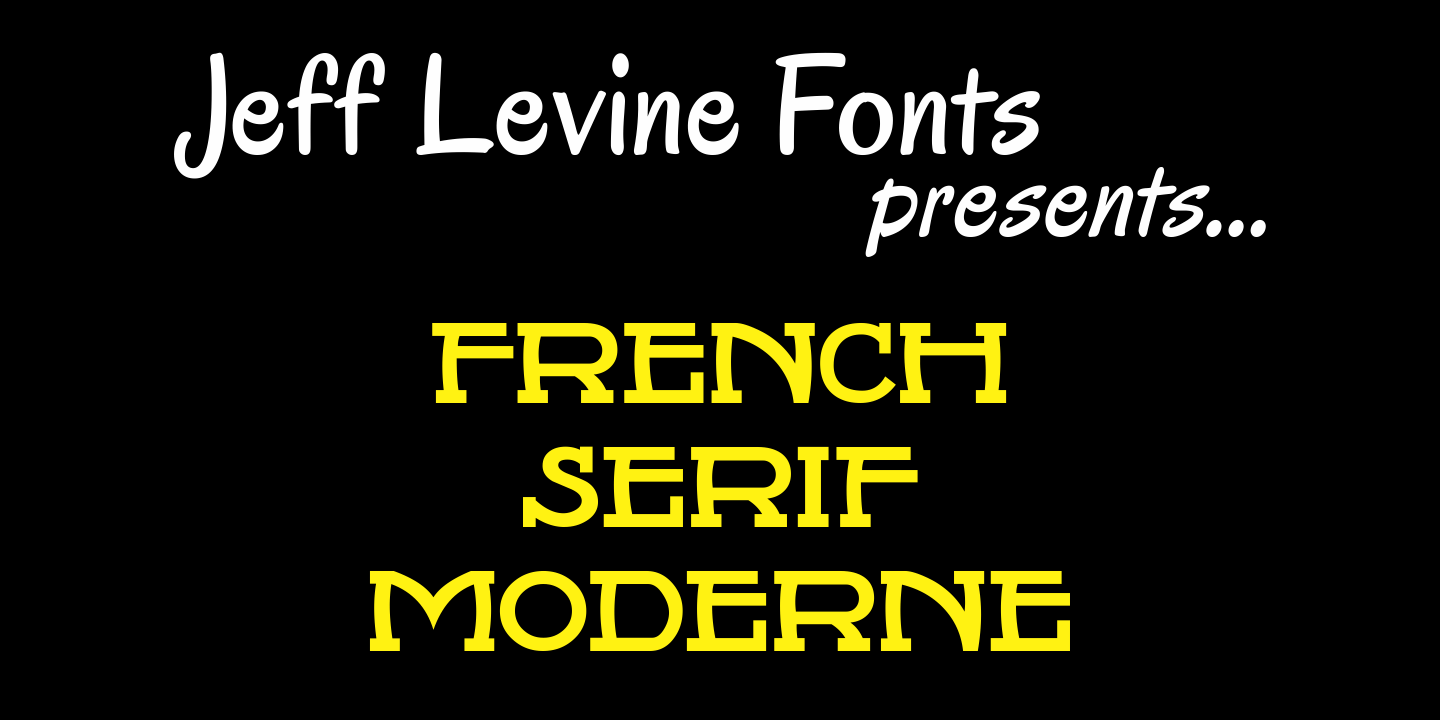
French Serif Moderne
French Serif Moderne JNL gives a slab serif treatment to the lettering comprising Jeff Levine's French Art Initials JNL. The font - containing a full character set - was inspired by a page from an early 20th Century French alphabet book posted online at an image sharing site.